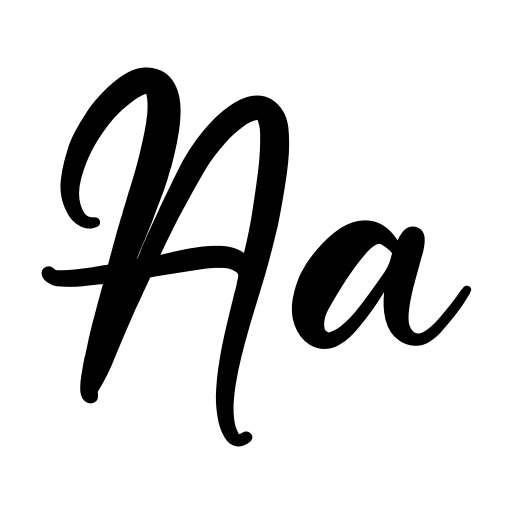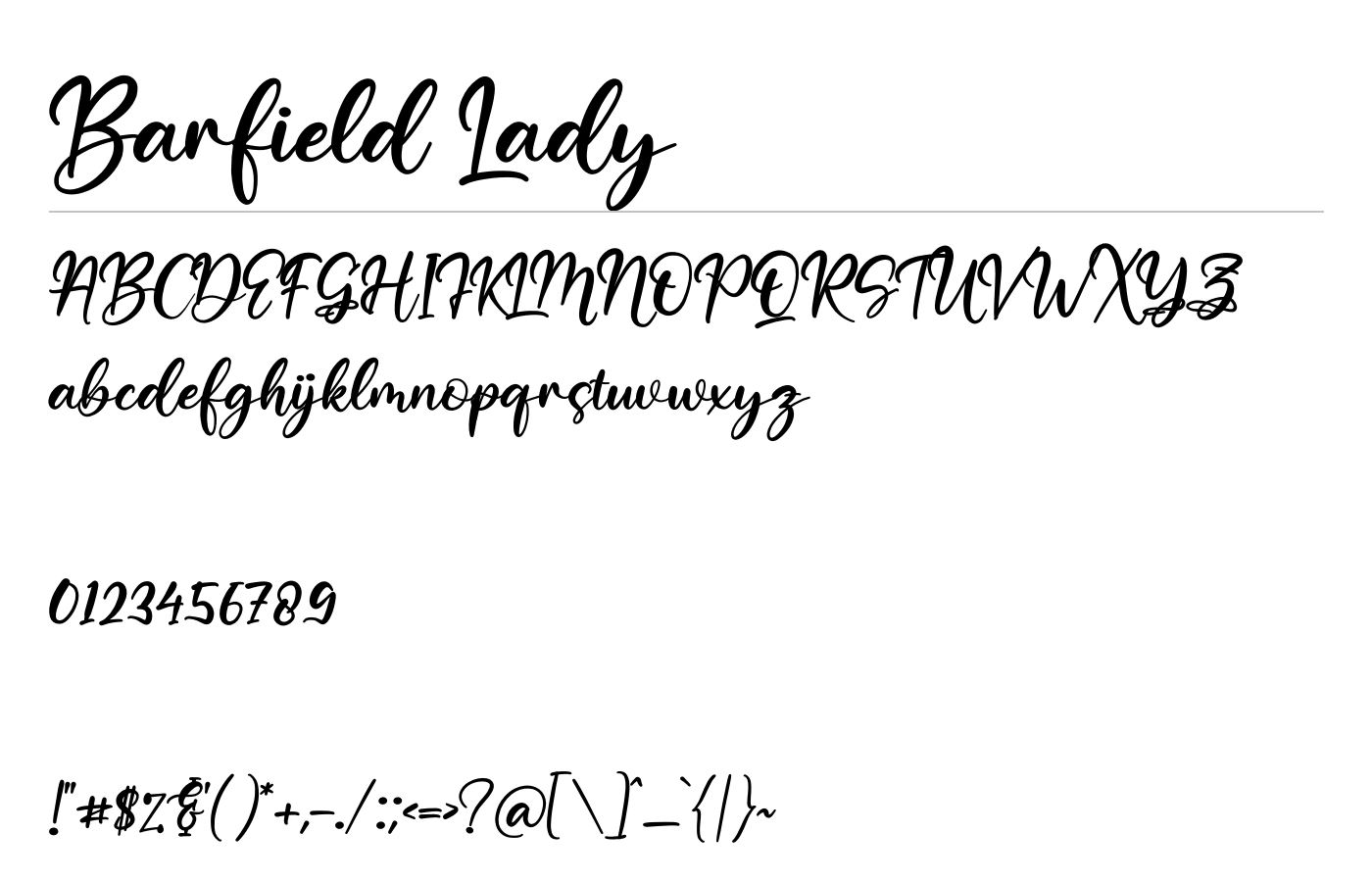
Barfield Lady is a stylish script font that exudes elegance and charm with its smooth, flowing strokes and medium weight. Its handwritten appearance features a lively, natural feel perfect for adding a personal and sophisticated touch to invitations, branding, and headlines. This font shines in projects that seek a graceful, feminine vibe while maintaining readability and visual interest.
Barfield Lady Font
About Barfield Lady Font